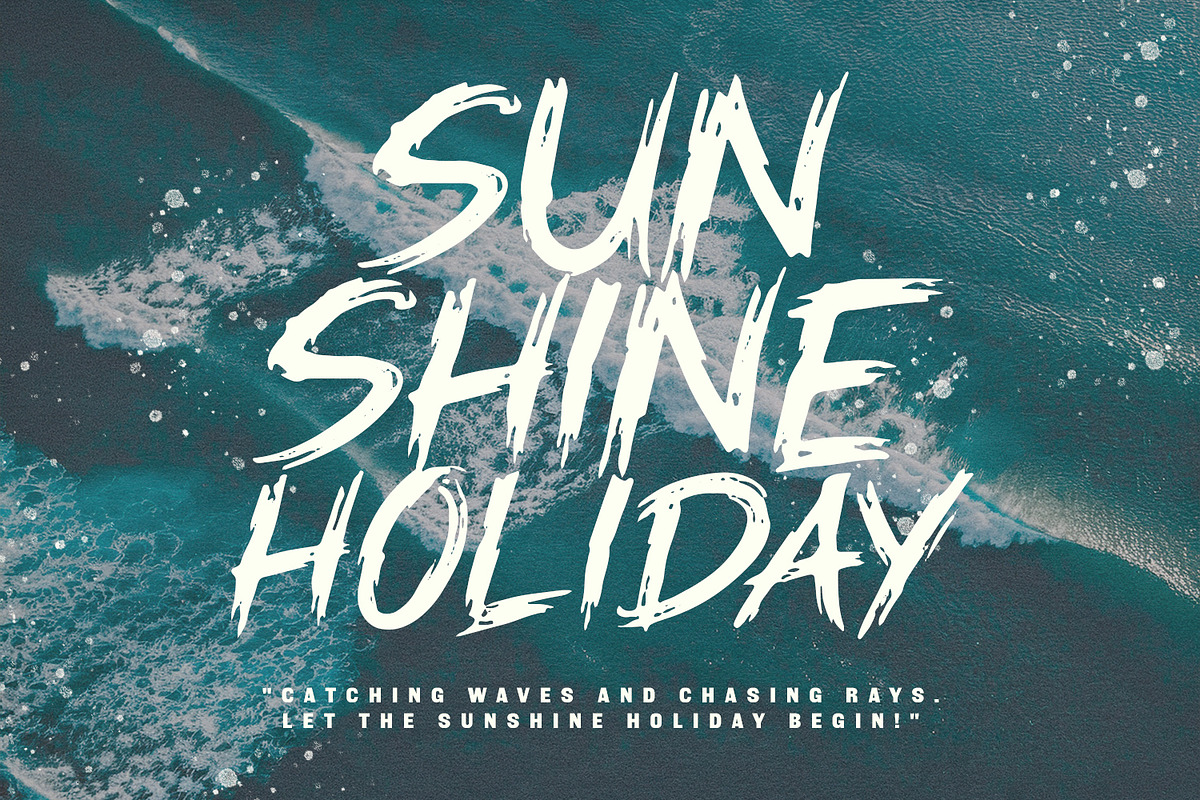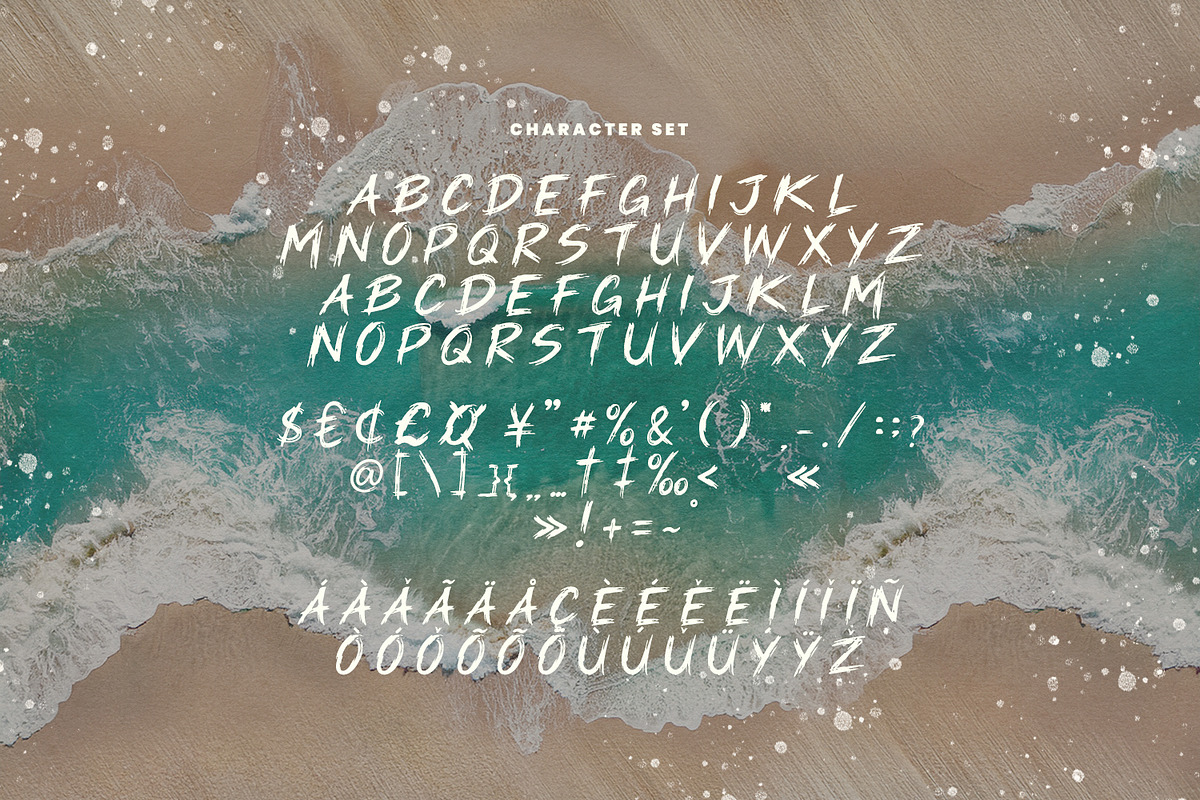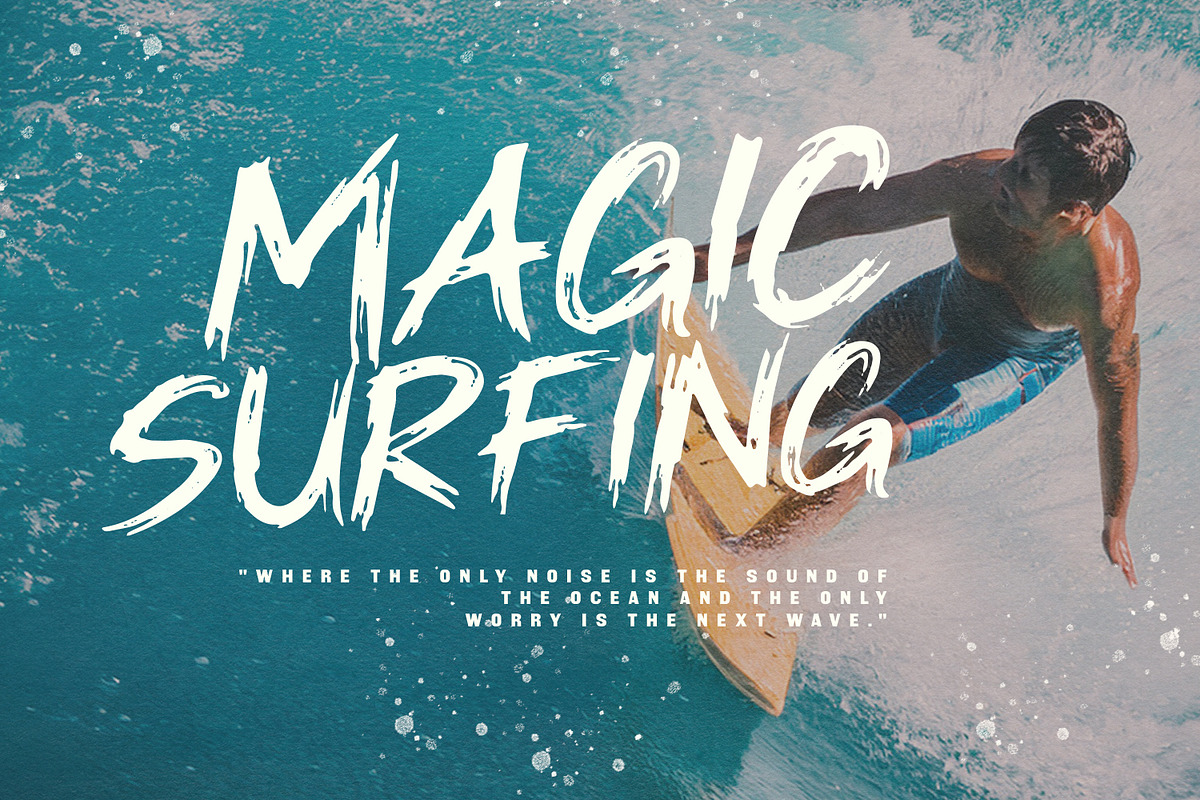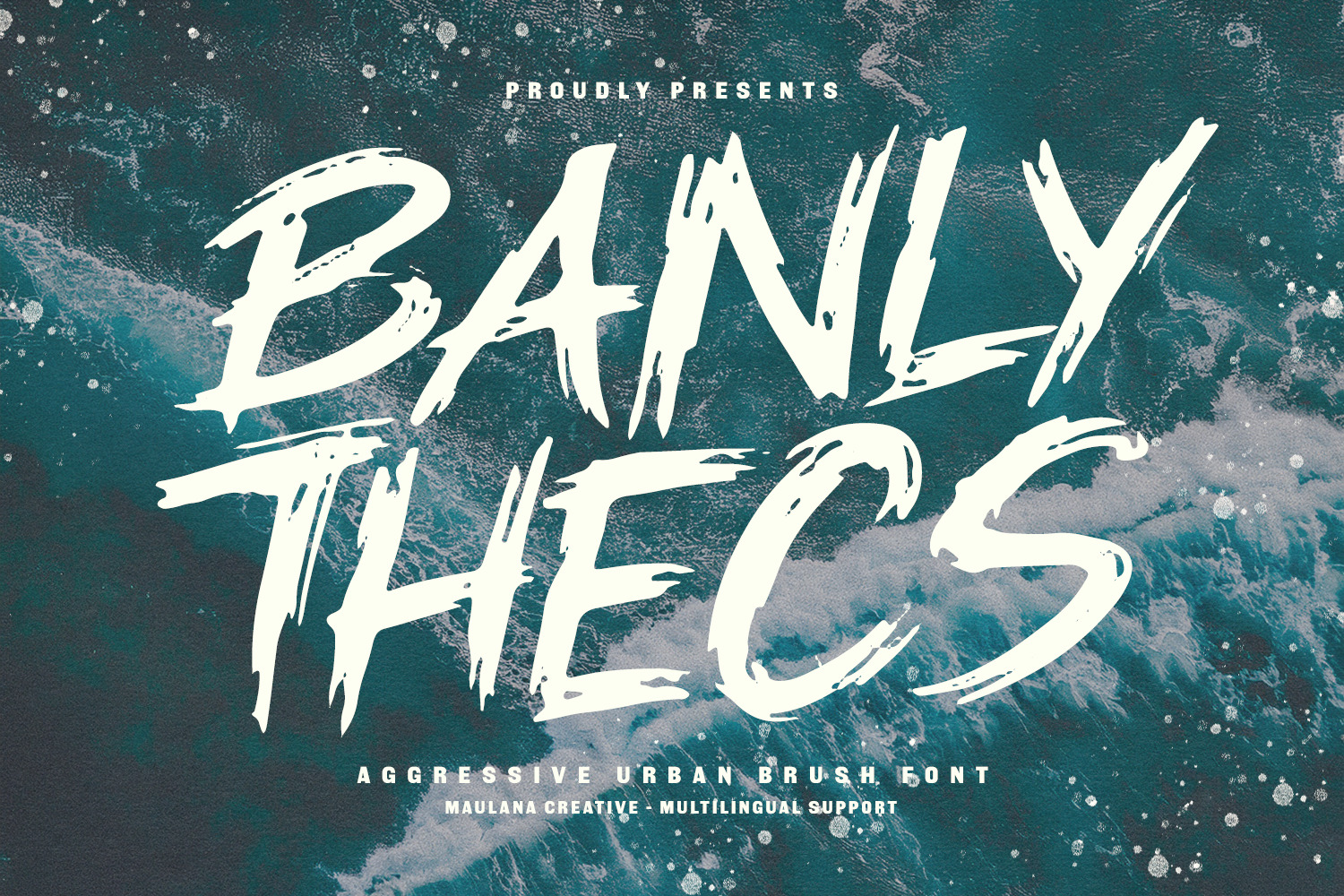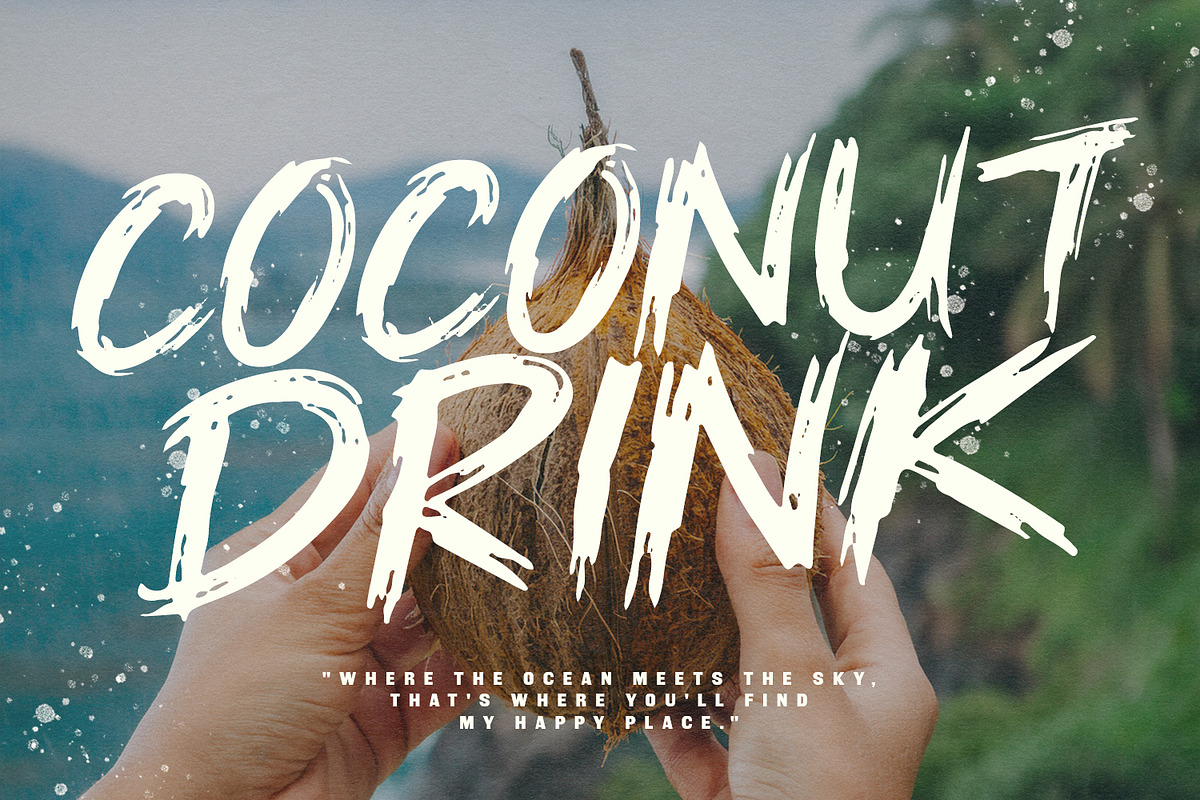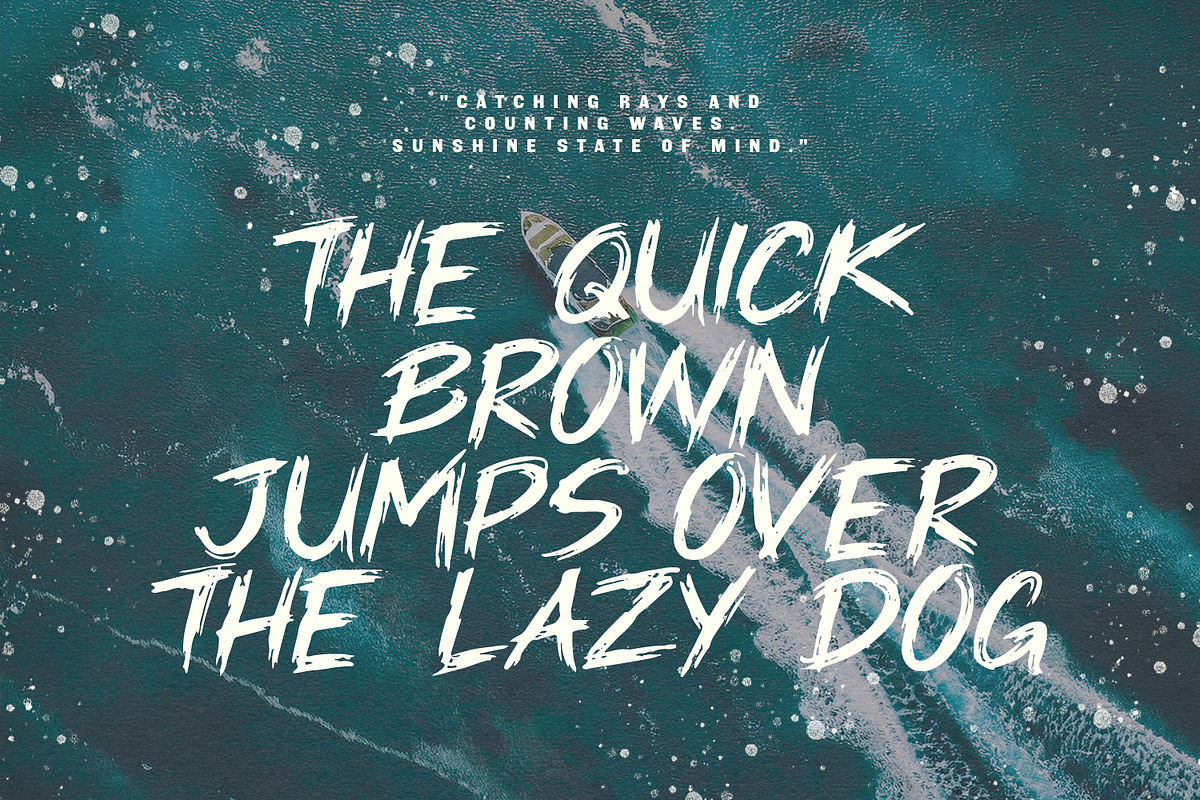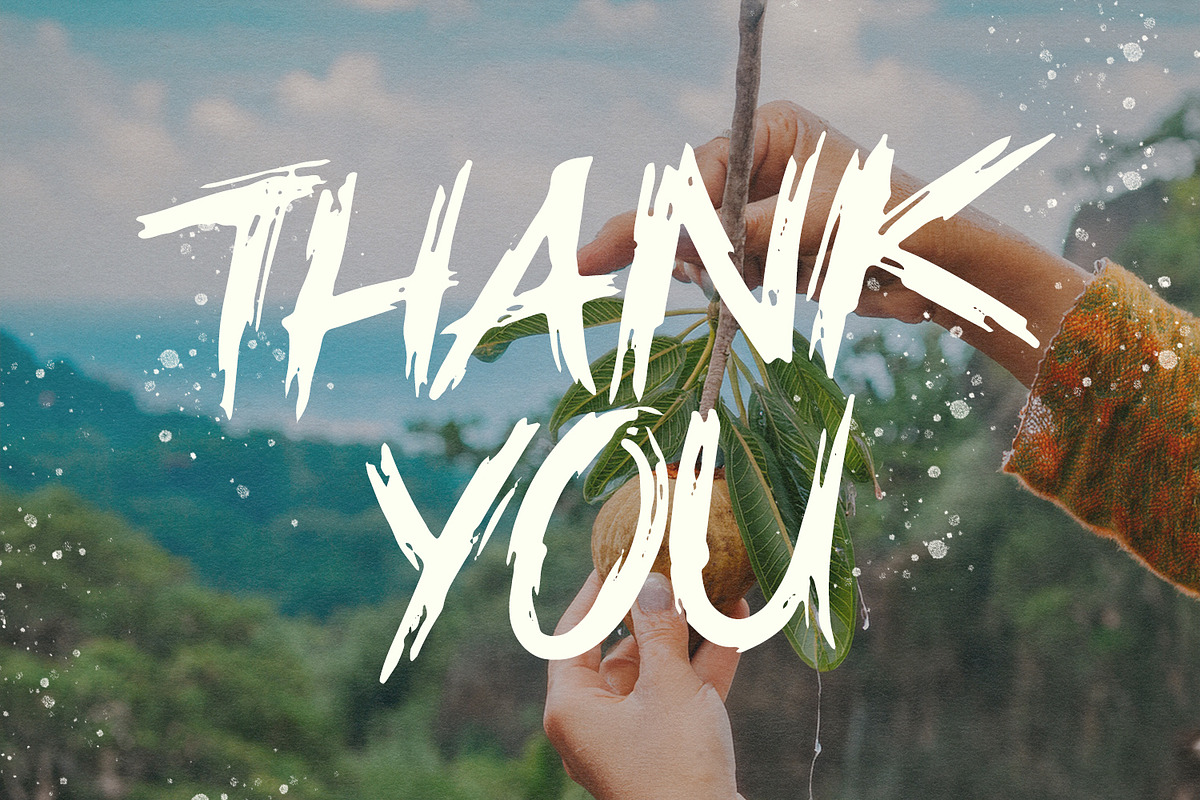
Banly Thecs Urban Brush Font
Banly Thecs is a bold, aggressive urban brush font designed to make a powerful statement. With its raw, hand-painted strokes and high-energy texture, this font captures the untamed spirit of street art and the adrenaline of extreme sports. While its "aggressive" nature makes it perfect for heavy metal branding, action posters, and edgy, it carries a surprising versatility that shines in tropical and summer themes—bringing a gritty, "rebel surfer" vibe to beachwear, travel blogs, and ocean-side events. Whether you are catching waves or conquering the concrete jungle, Banly Thecs provides the raw impact your designs need.